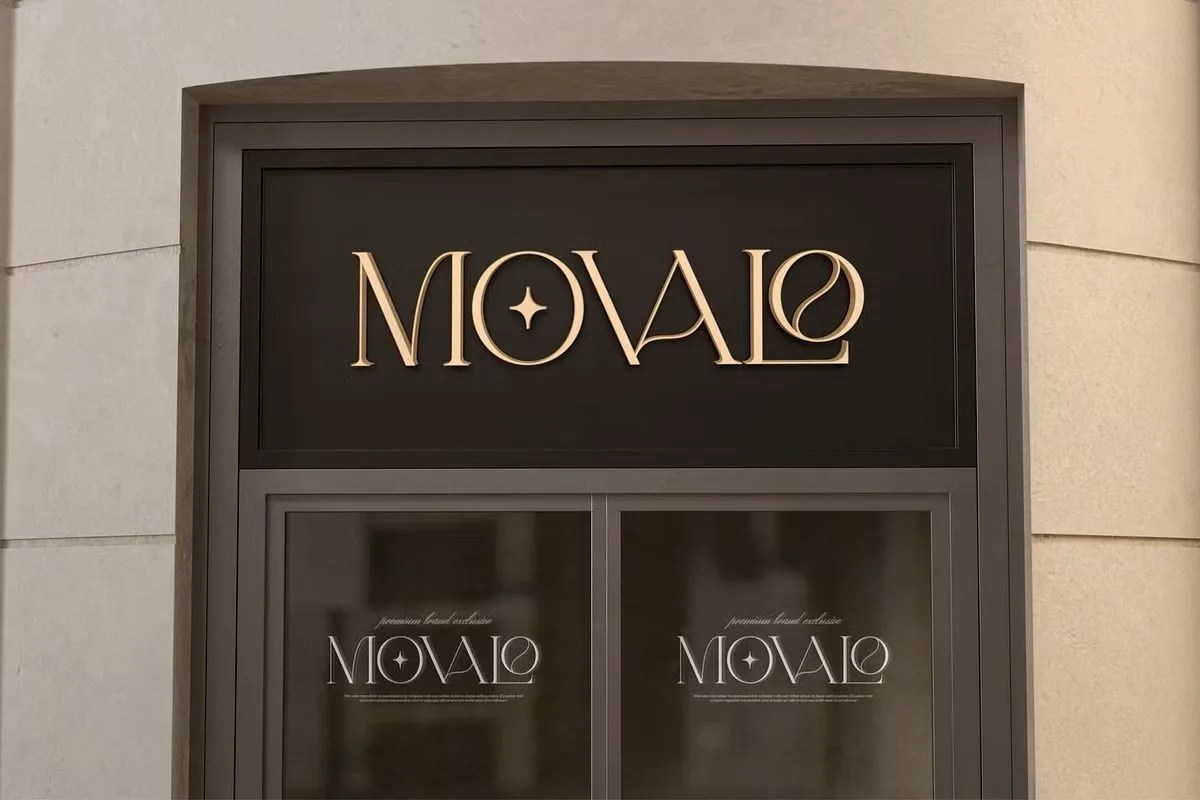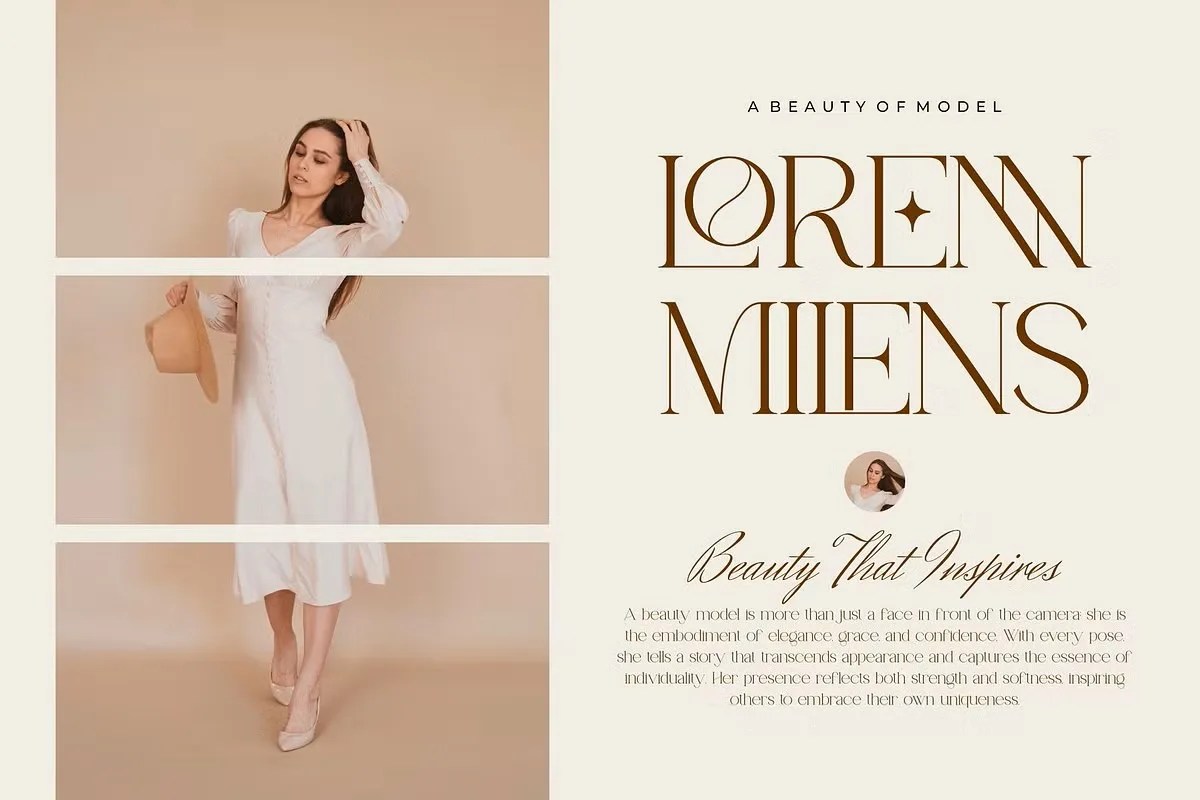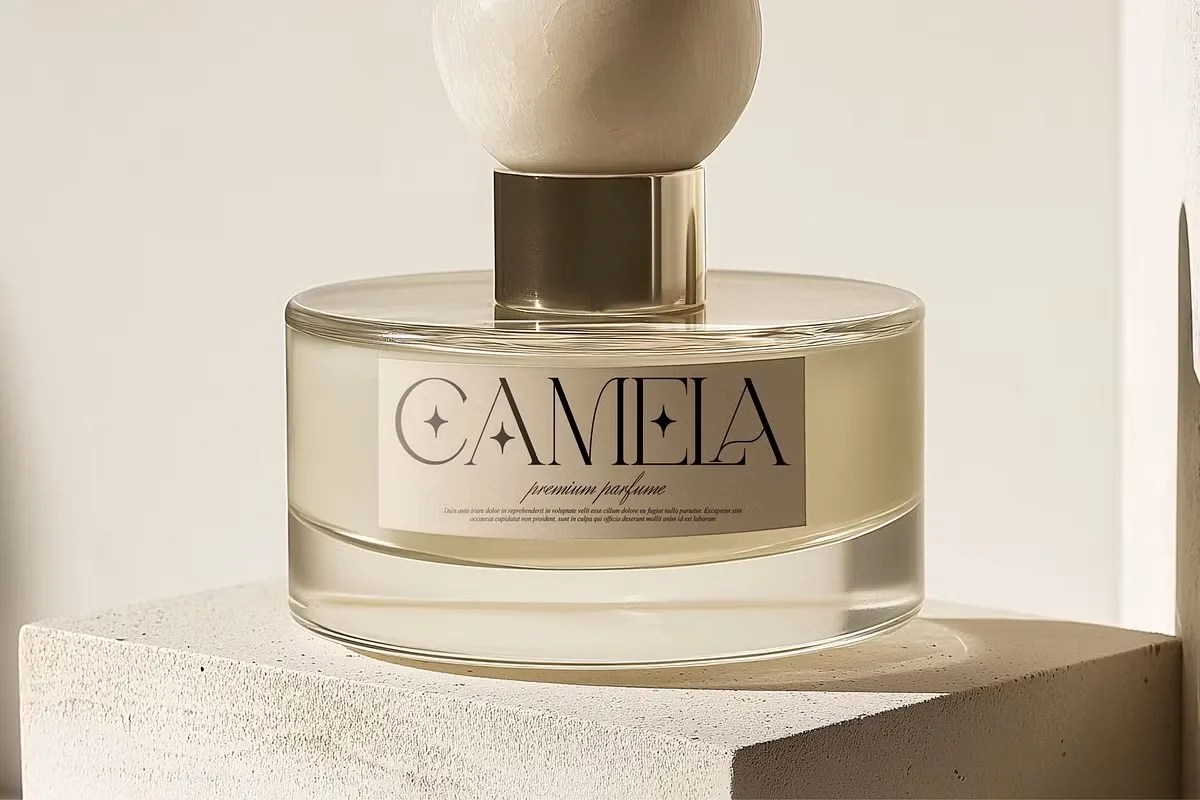
Ronnea by Idea Studio. This is a warm and friendly sans serif font with a soft, approachable character that makes any text feel welcoming. This font carefully avoids sharp edges. Instead, it uses gentle curves and open forms to create a pleasant and effortless reading experience. Ronnea is perfect for brands and designers who want to communicate with a personal, open, and honest voice, connecting with their audience on a human level.
This font is a fantastic choice for brands with a personal and approachable touch. Specifically, its welcoming style is ideal for lifestyle bloggers, boutique cafes, or wellness studios. It helps create an immediate sense of community and trust. Furthermore, this friendly sans serif font is excellent for packaging for organic foods or children’s products. Its softness communicates a sense of safety and care. Use it for social media graphics or website headings to create an inviting digital space for your audience.
• Soft and friendly sans serif style
• Features rounded terminals and gentle curves
• Ideal for lifestyle branding, cafes, and social media
• Provides a warm and approachable look
Ronnea